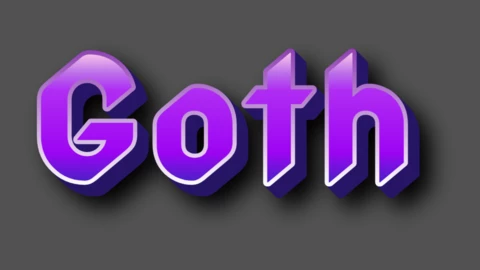
Bright purple Text effect
Instagram Bio Font Style Text Effect
Create a text effect "Instagram Bio Font Style" bright purple with our online custom font generator.
Create captivating and unique text effects effortlessly with our innovative font style text effect generator. From bold gothic fonts to vibrant and eye-catching purple hues, our generator offers a wide range of options to make your text pop and leave a lasting impression.